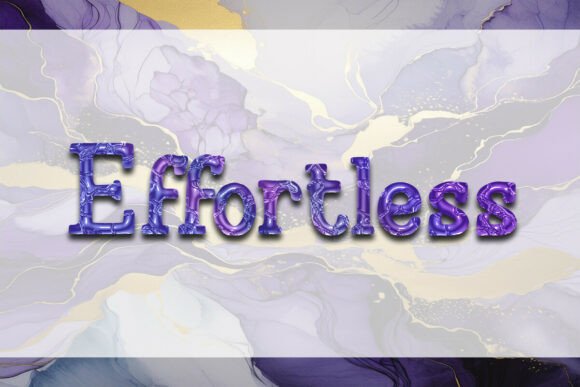
Effortless Font: The Epitome of Understated Elegance
In the realm of typography, few fonts manage to convey the essence of sophistication, grace, and timelessness as effortlessly as the Effortless Font. This exquisite typeface is a masterclass in understated elegance, boasting a refined serif structure with subtle flourishes that evoke a high-end, artisanal quality. The Effortless Font is specifically designed for those moments when your design needs to exude an air of luxury, thoughtfulness, and, as the name suggests, complete effortlessness.
A Font Fit for Luxury
The Effortless Font is perfectly at home in the world of luxury, where high-end aesthetics and attention to detail are paramount. Imagine a high-fashion magazine, a premium skincare label, or bespoke wedding stationery – the Effortless Font is the perfect companion for these refined and discerning applications. Its classic proportions and delicate serifs provide a sense of history, while remaining firmly rooted in modern aesthetics. This harmonious blend of old and new is what sets the Effortless Font apart from other typefaces.
Design Versatility
One of the standout features of the Effortless Font is its versatility. Whether you’re looking to create a striking hero element on a clean, white background or pair it with an organic watercolor background for a soft, romantic feel, this font adapts seamlessly to its surroundings. The delicate letterforms of the Effortless Font are beautifully proportioned, allowing them to breathe and take center stage in your design. Alternatively, the font can be paired with fine-art photography or luxury brand identities to convey trust and prestige without resorting to overt displays of opulence.
Key Features of the Effortless Font
- Refined Serif Structure: The Effortless Font boasts a sophisticated serif structure that adds a touch of elegance to any design.
- Subtle Flourishes: Delicate flourishes add a high-end, artisanal quality to the font, setting it apart from more mundane typefaces.
- Classic Proportions: The font’s classic proportions provide a sense of history and timelessness, while its delicate serifs keep it firmly rooted in modern aesthetics.
- Versatile: The Effortless Font can be used in a variety of applications, from luxury branding to fine-art photography and bespoke stationery.
Tips for Using the Effortless Font
To get the most out of the Effortless Font, consider the following tips:
- Let it Breathe: Allow the beautiful letterforms of the Effortless Font to take center stage by pairing it with a clean, white background.
- Mix with Texture: Pair the Effortless Font with an organic watercolor background for a soft, romantic feel that adds depth and interest to your design.
- Convey Luxury: Use the Effortless Font to convey trust and prestige in luxury brand identities or high-end applications.
In conclusion, the Effortless Font is a true masterpiece of typographic design. Its sophisticated, graceful, and timeless aesthetic makes it the perfect choice for designers and crafters looking to add a touch of luxury and elegance to their work. With its refined serif structure, subtle flourishes, and classic proportions, the Effortless Font is sure to become a go-to typeface for those seeking to create high-end designs that exude understated elegance.